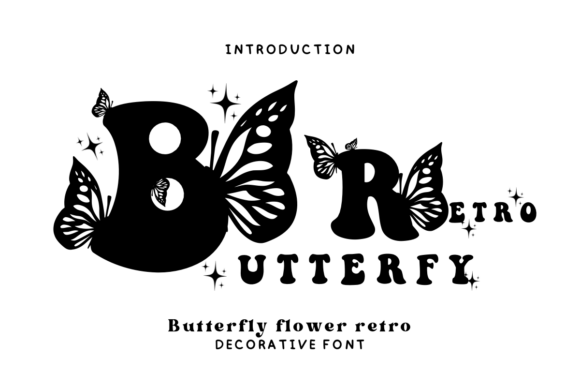
Unfold a Vintage Charm with Butterfly Retro Font
In the realm of typography, few fonts manage to capture the essence of vintage charm as elegantly as the Butterfly Retro font. This highly decorative typeface has emerged as a popular choice among designers and crafters alike, seeking to infuse their creations with a dash of grace and a touch of nostalgia. Whether you’re jotting down notes, crafting diary entries, or designing greeting cards, Butterfly Retro offers an elegant allure that’s hard to resist.
The Versatility of Butterfly Retro
Beyond its application in traditional stationery, Butterfly Retro proves to be a versatile font that can enhance a wide range of designs. From vibrant banners and engaging digital content to customized merchandise such as mugs, cards, and t-shirts, this font brings a unique aesthetic that makes any project stand out. The beauty of Butterfly Retro lies in its ability to transcend mediums, seamlessly fitting into both digital and print designs.
Stationery, in particular, gains a new definition with Butterfly Retro. The font’s intricate details and classic appeal can transform simple stationery items into keepsakes. Similarly, social media posts can embody this timeless charm, allowing users to elevate their online presence with visually appealing text that captures the attention of their audience.
Crafting with Butterfly Retro
Bfly Retro is not just a font; it’s a tool for creativity. It offers an excellent way to add a personal touch to various projects. For crafters and DIY enthusiasts, this font can be a game-changer. Imagine creating personalized greeting cards that carry the recipient’s name in a beautifully ornate script or designing a custom mug with a quote that resonates with the user’s personality.
The font’s decorative nature makes it perfect for:
- Handmade cards and invitations
- Customized journals and diaries
- Personalized gifts such as mugs, t-shirts, and tote bags
- Stationery sets and paper crafts
Bfly Retro’s versatility extends to digital crafts as well. Designers can use it to create compelling content for blogs, social media, and websites, adding a vintage flair that sets their work apart.
The Aesthetic Appeal of Butterfly Retro
The aesthetic appeal of Bfly Retro lies in its intricate design and the elegance it brings to any piece of writing or design. The font’s retro vibe is reminiscent of classic typography, yet it maintains a modern feel that makes it suitable for contemporary designs.
Key features of Butterfly Retro include:
- Intricate and detailed lettering
- Classic yet modern aesthetic
- Highly legible, making it suitable for both headings and body text
- Support for various languages
This combination of vintage charm and modern usability makes Butterfly Retro a go-to font for designers looking to add a touch of sophistication to their work.
Tips for Using Butterfly Retro
To make the most of Bfly Retro, consider the following tips:
- Mix and Match: Combine Bfly Retro with simpler fonts to create visual interest. Use it for headings and a sans-serif font for body text.
- Play with Colors: The font’s vintage charm can be further emphasized with the right color choices. Earth tones, pastels, and rich jewel tones can enhance its retro appeal.
- Experiment with Sizes: Don’t be afraid to vary the font size to create a dynamic layout. Larger sizes can be used for emphasis, while smaller sizes can ensure readability.
By experimenting with different design elements, you can unlock the full potential of Butterfly Retro and create stunning pieces that capture the essence of vintage charm.
Bfly Retro is more than just a font; it’s a design statement. Its unique blend of vintage charm and modern versatility makes it an invaluable tool for designers, crafters, and anyone looking to add a touch of elegance to their projects. Whether you’re creating digital content, designing custom merchandise, or crafting handmade cards, Bfly Retro offers a timeless appeal that can elevate your work to new heights.
So, unfold the vintage charm with Bfly Retro and discover a world of creative possibilities. Let this beautiful font be the cornerstone of your next design project, and experience the difference it can make.